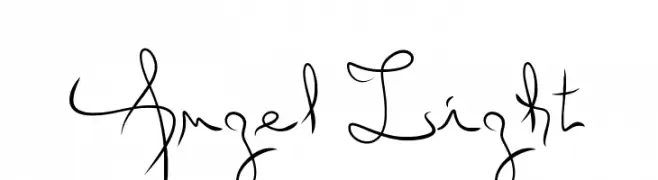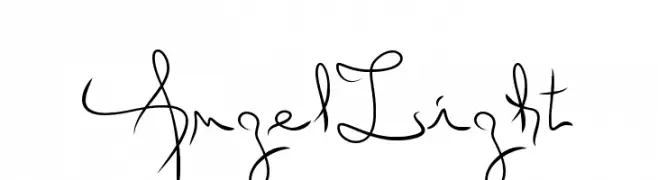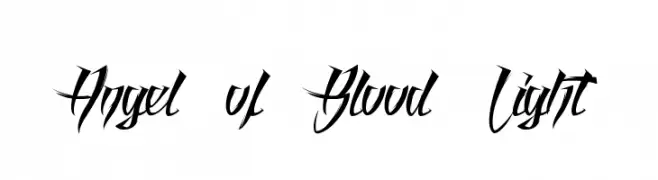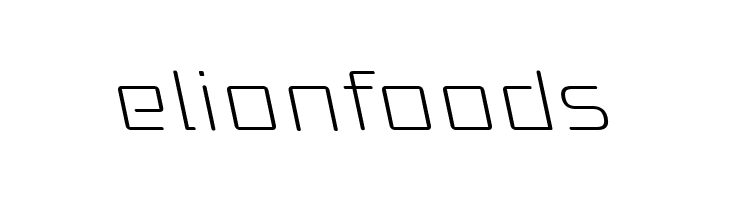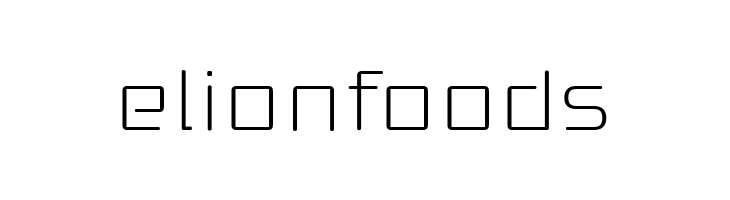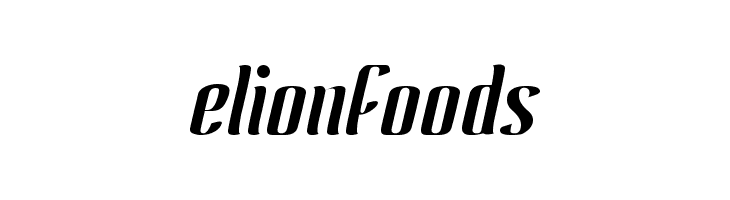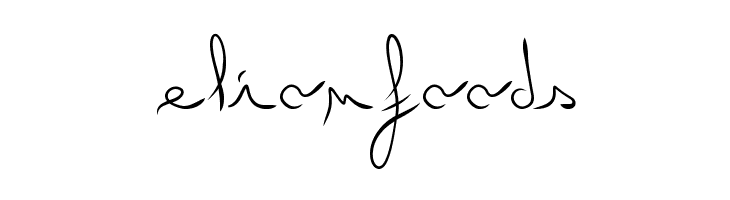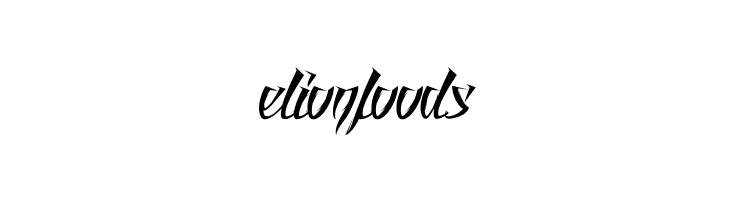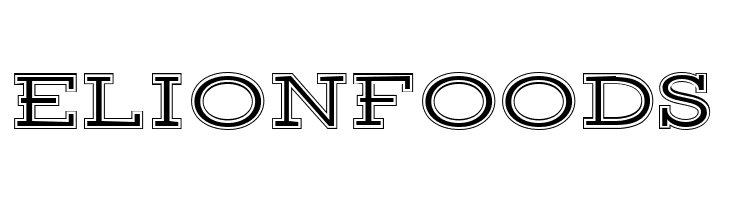
A sleek, light, and italic sans-serif font with a modern aesthetic.
An elegant, flowing script font with smooth, continuous strokes.
A dramatic, calligraphic font with sharp, angular strokes and a gothic flair.
A playful, handwritten font with thin, consistent strokes and a casual style.
A playful, handwritten font with bold strokes and a dynamic slant.
A modern, geometric font with a clean and minimalistic design.
A modern, geometric, and oblique font with a futuristic style.
A bold, decorative font with a double-line outline and geometric structure.
A dynamic, italicized font with smooth, fluid strokes and moderate contrast.